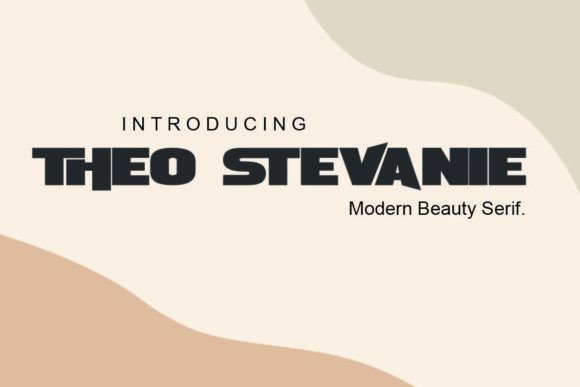
Step into the realm of sophistication and elegance with **Theo Stevanie**, a meticulously crafted sans serif font that epitomizes modern aesthetics. This font is not merely a collection of letters; it's an artistic masterpiece, a symphony of curves and lines that dance together in perfect harmony.
Dare to be different, to stand out from the crowd. With **Theo Stevanie**, you have the power to transform your business plan into an unforgettable experience. Its clean, minimalist lines exude a sense of professionalism and authority, captivating the attention of readers from the very first glance.
More than just a font, **Theo Stevanie** is an expression of your vision, a reflection of your passion and dedication. It's the perfect choice for those who seek to make a lasting impression, to leave an indelible mark on the business world.
Unlock your creativity and let your ideas flourish with **Theo Stevanie**. Allow this font to be your guide as you craft a business plan that is as unique as your brand, as compelling as your message, and as memorable as your success story.
Don't settle for ordinary—embrace the extraordinary with **Theo Stevanie**. This font is not just a tool; it's an investment in your future, an investment in your brand's identity. Embrace its timeless beauty and watch as your business plan blossoms into a masterpiece that captures hearts and minds.